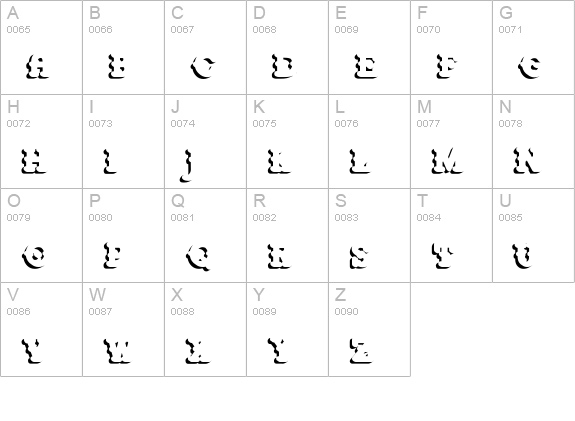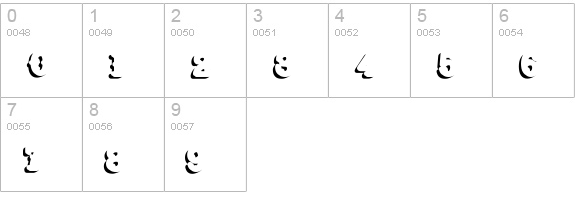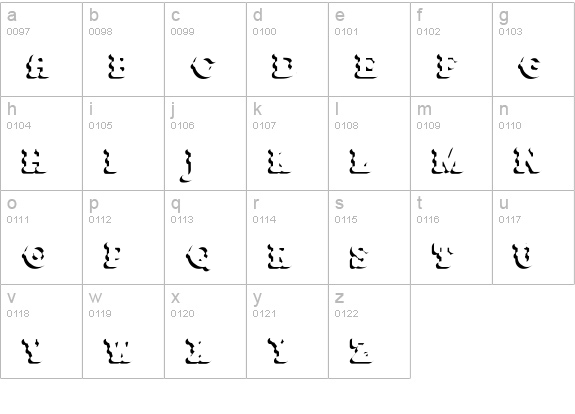
Retro Pop Shadow Font Details
Retro Pop Shadow font is a vibrant and playful typeface that perfectly captures the essence of retro design. With its bold and dynamic shadow effect, this font brings a sense of nostalgia and fun to any project. The unique styling of Retro Pop Shadow makes it ideal for creating eye-catching headlines, posters, logos, and more. Best of all, Retro Pop Shadow font is completely free to download at FontsMarket.com. Whether you're a designer looking to add a touch of retro charm to your work or just someone who appreciates a fun and stylish font, Retro Pop Shadow is sure to make a statement. Download it today and let your creativity shine with this fantastic typeface.